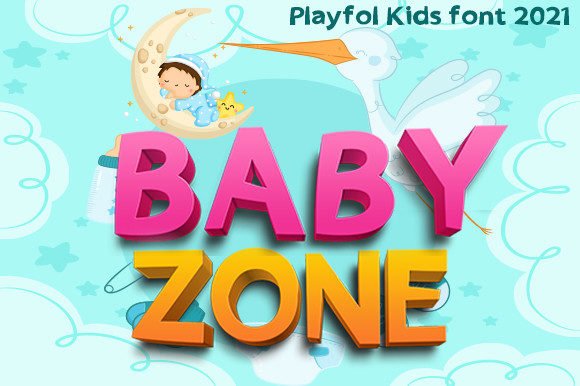
The Joy of Designing for Little Ones
Do you remember the excitement of creating a birthday card for your child, or designing a nursery for their new sibling? The little details make all the difference, and that’s where a great font comes in. The right font can add a touch of magic to your designs, making them truly special.
That’s why we’re thrilled to introduce you to the Baby Zone Font, a delightful display font designed specifically for creating fun and playful designs for kids. Whether you’re working on a cartoon-related project, a children’s game, or just a special creation for a little one, this font is an amazing choice. With its PUA encoding, you’ll have access to all the glyphs and swashes you need to make your designs truly shine.
Baby Zone Font Key Features
- Font Family: The Baby Zone Font is a custom-designed font family, consisting of 6 unique styles: Baby Zone, Baby Zone Bold, Baby Zone Italic, Baby Zone Bold Italic, Baby Zone Outline, and Baby Zone Shadow.
- Unique Characteristics: The Baby Zone Font features a playful and whimsical design, with rounded shapes and soft lines, making it perfect for creating a nursery or children’s-themed environment.
Baby Zone Font Review
Overall, I think the Baby Zone Font is a cute and playful font that could be perfect for children’s products or nursery-related designs. It works well for ✨ creating a friendly and approachable atmosphere ✨.
- It has a unique and distinctive style that can help a design stand out.
- The font is highly legible, even at smaller sizes, which makes it suitable for a variety of applications.
- The font is available in a range of weights and styles, which provides flexibility for designers.
However, there are some limitations to consider ⚠️:
- The font may be too cute or childish for some design applications.
- The font’s distinctive style may not be to everyone’s taste.
- The font may not be as versatile as some other fonts, and may not work well in certain contexts.
Overall, I think the Baby Zone Font is a solid choice for designers who need a friendly and approachable font for children’s products or nursery-related designs. However, it may not be the best choice for designers who need a more versatile or professional font.
Tips for Getting the Most Out of Baby Zone Font
For best results, use Baby Zone Font in a playful and creative context, such as:
- Baby shower invitations
- Children’s book covers
- Toy packaging
Remember to pair Baby Zone Font with other fun and playful elements to create a cohesive and engaging design.